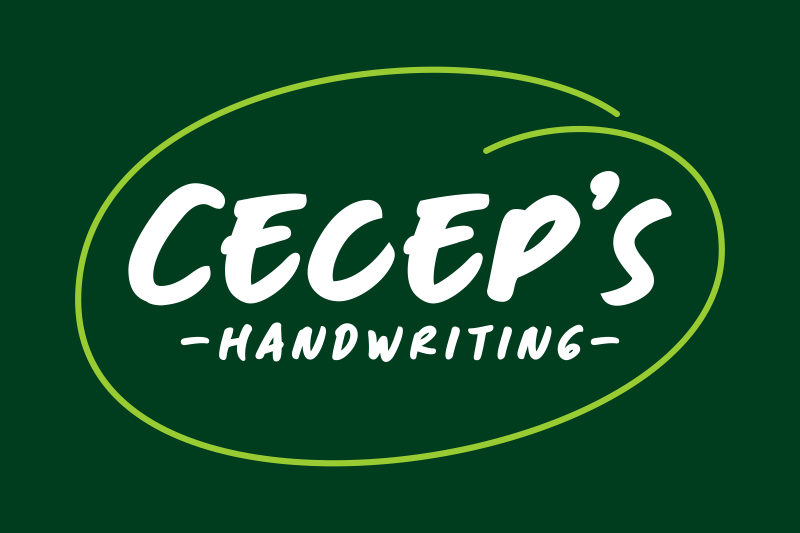
Font name: | Cecep's Handwriting |
Author: | Twicolabs Fontdation |
My digital handwriting, from the scratch to your screen. Free or personal and commercial use, enjoy! |